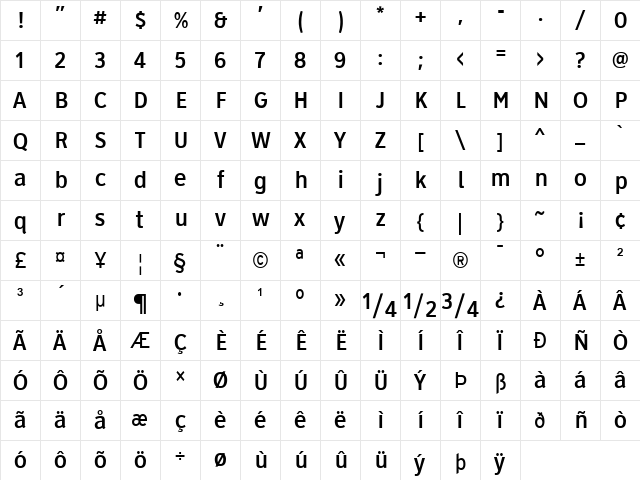
Roadgeek 2005 Series 3W Regular
Foundry: Michael D. Adams
Design Context for Roadgeek 2005 Series 3W
Roadgeek 2005 Series 3W is a composed and adaptable typeface that performs quietly and consistently across a wide range of design contexts.
Who designed the Roadgeek 2005 Series 3W Regular font?